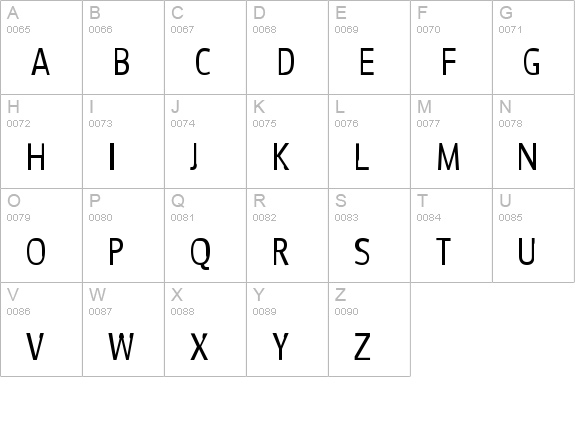
SaharaEF-Bold Font Details
SaharaEF-Bold is a strong, high-contrast variant in the SaharaEF typeface family \xE2\x80\x94 well suited to headlines, attention-grabbing titles, and strong calls-to-action.
SaharaEF-Bold is a stunning and bold font that exudes confidence and power. Its strong and clean lines make it perfect for headlines, titles, and logos that need to make a bold statement. With its distinctive and eye-catching design, SaharaEF-Bold is sure to attract attention and leave a lasting impression. What sets SaharaEF-Bold apart is not only its impressive design but also its availability for free. That's right, this incredible font is freely available to download at FontsMarket.com. Whether you're a professional designer, a blogger, or simply someone looking to add a touch of elegance to your personal projects, SaharaEF-Bold is the perfect choice. With SaharaEF-Bold, you can unleash your creativity without any limitations. Use it to create captivating posters, striking social media graphics, engaging website headers, or even beautifully designed invitations. The options are endless, and the best part is that you don't have to spend a dime to use this exceptional font. Downloading SaharaEF-Bold from FontsMarket.com is quick and easy. Simply visit the website, find the font, and click the download button. Within seconds, you'll have access to this incredible font and be able to start using it in your designs. Don't miss out on the opportunity to enhance your projects with SaharaEF-Bold. Download it for free today at FontsMarket.com and let your creativity soar.